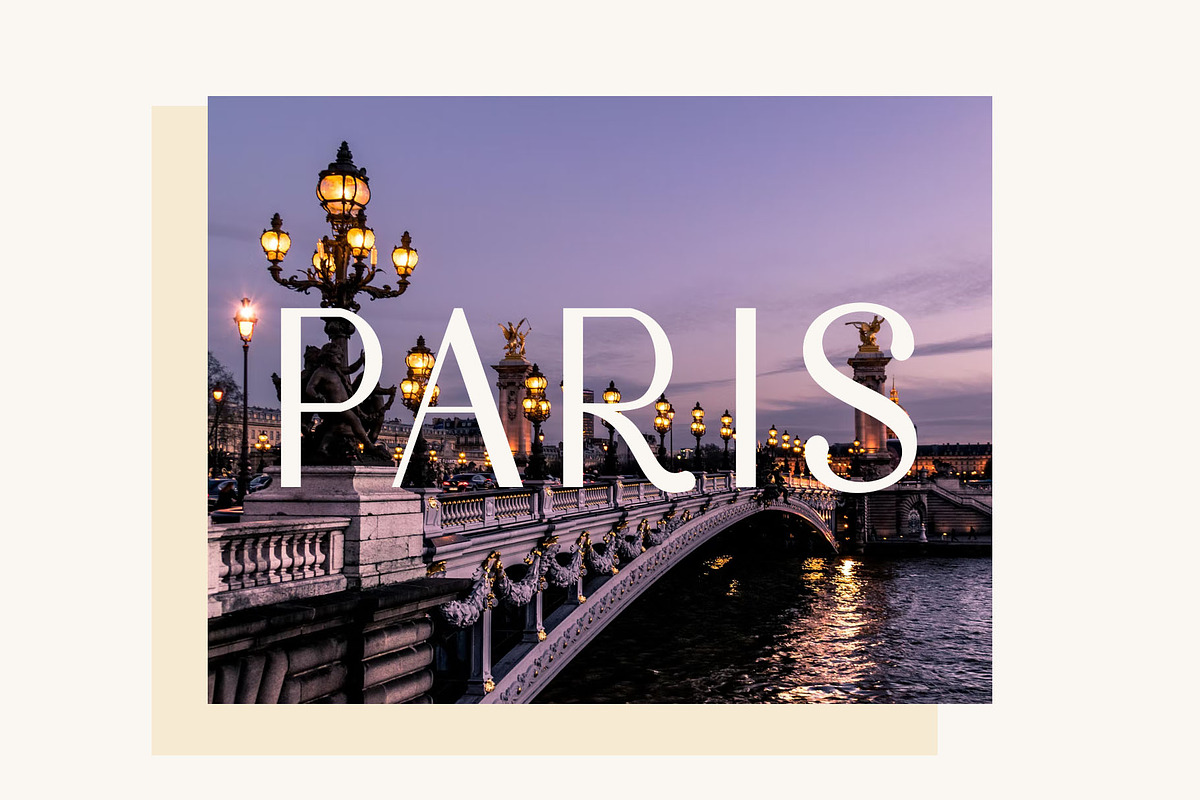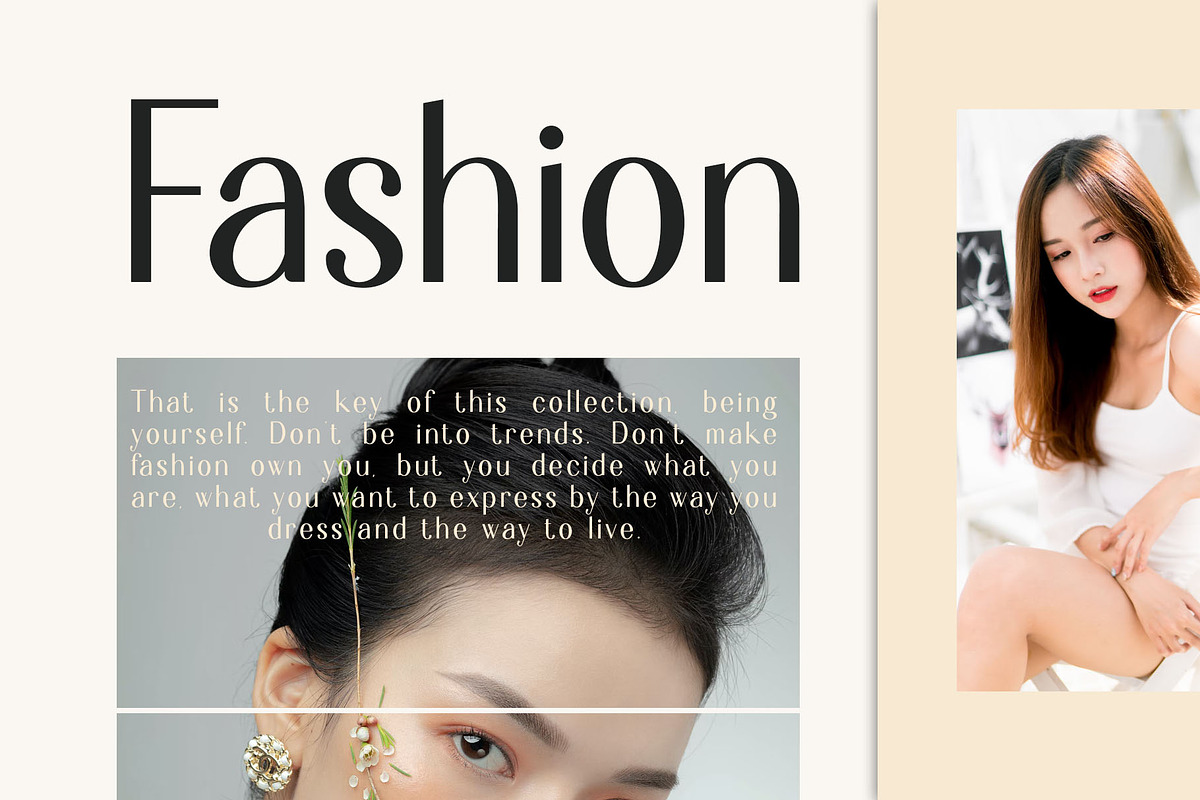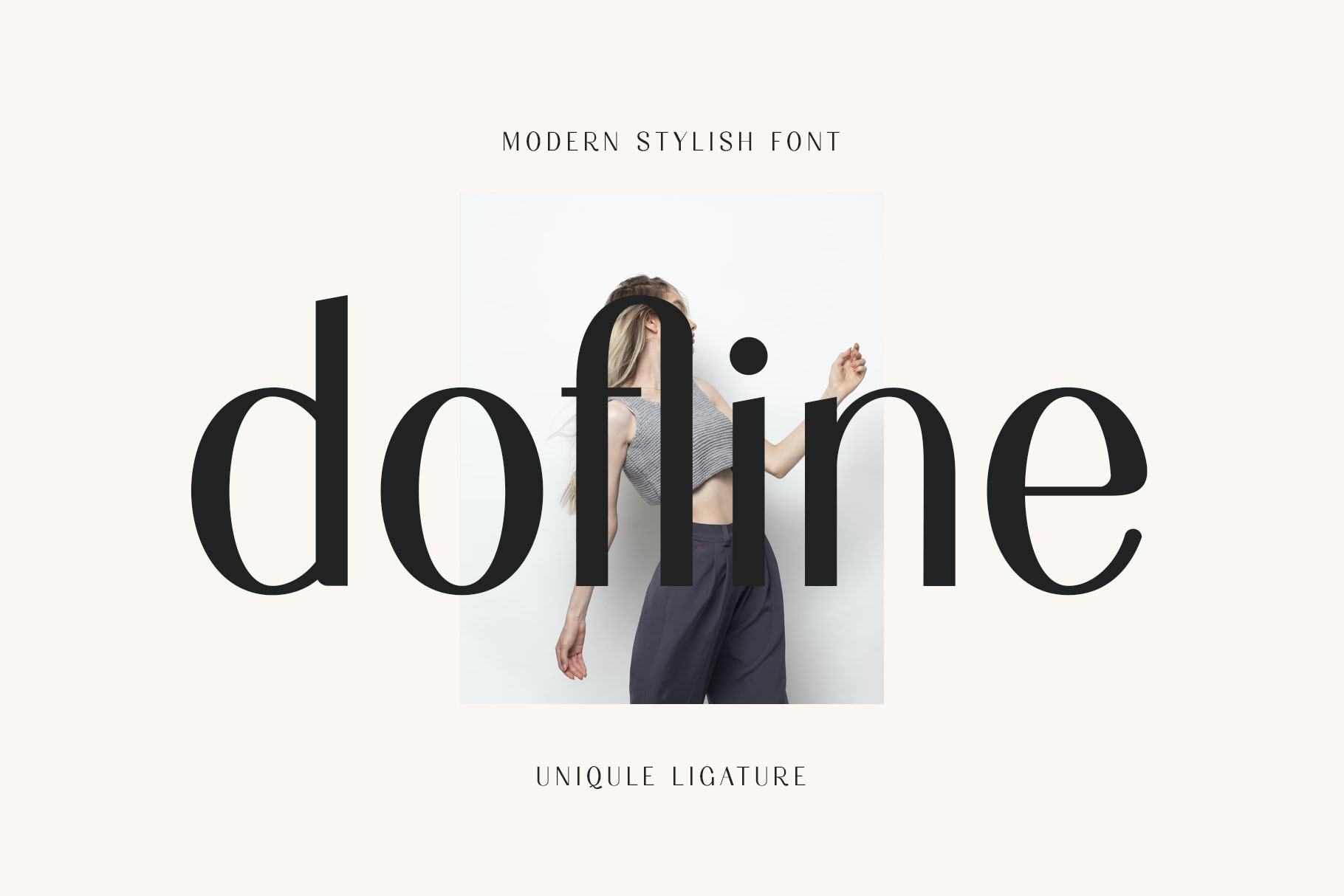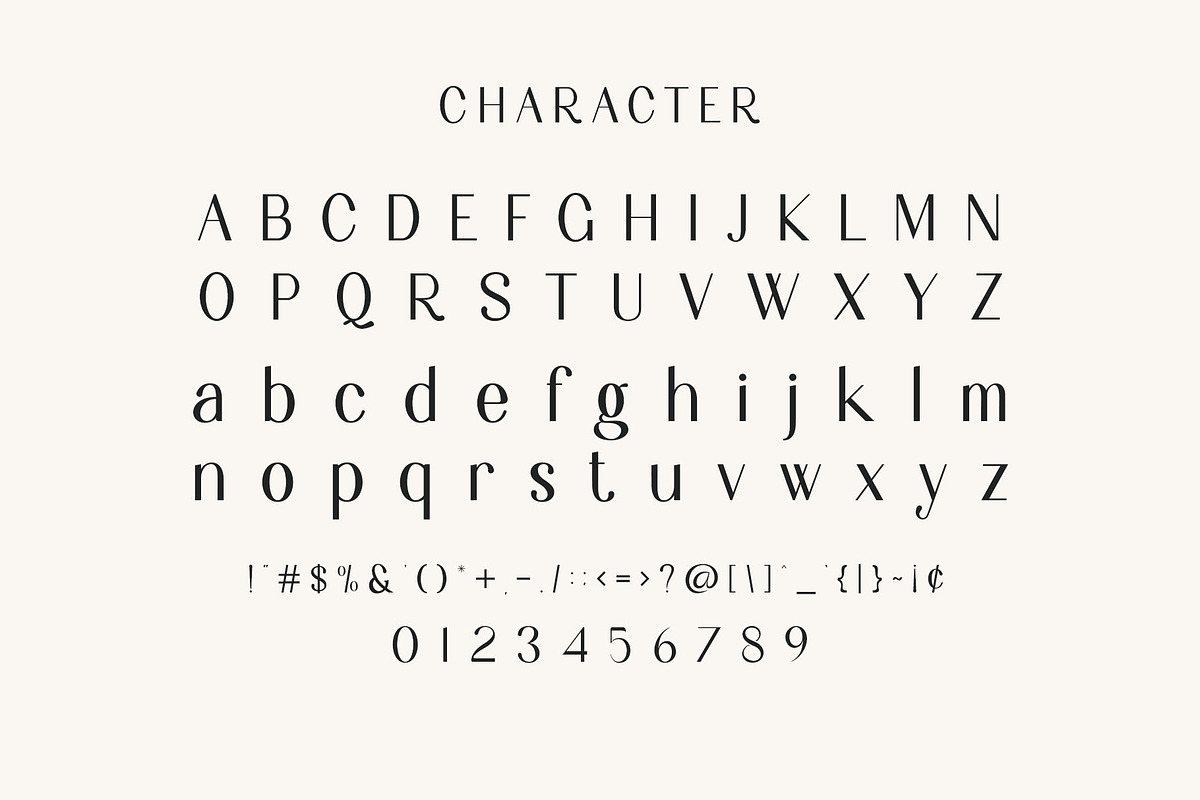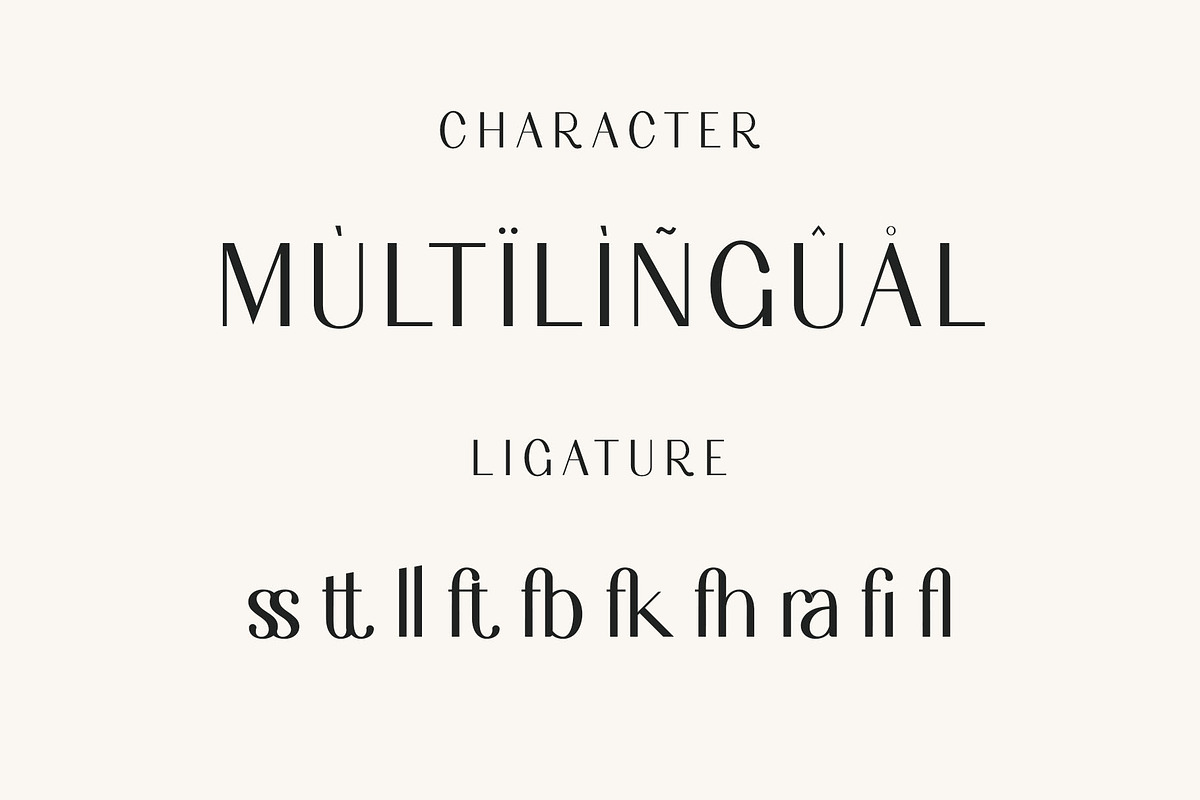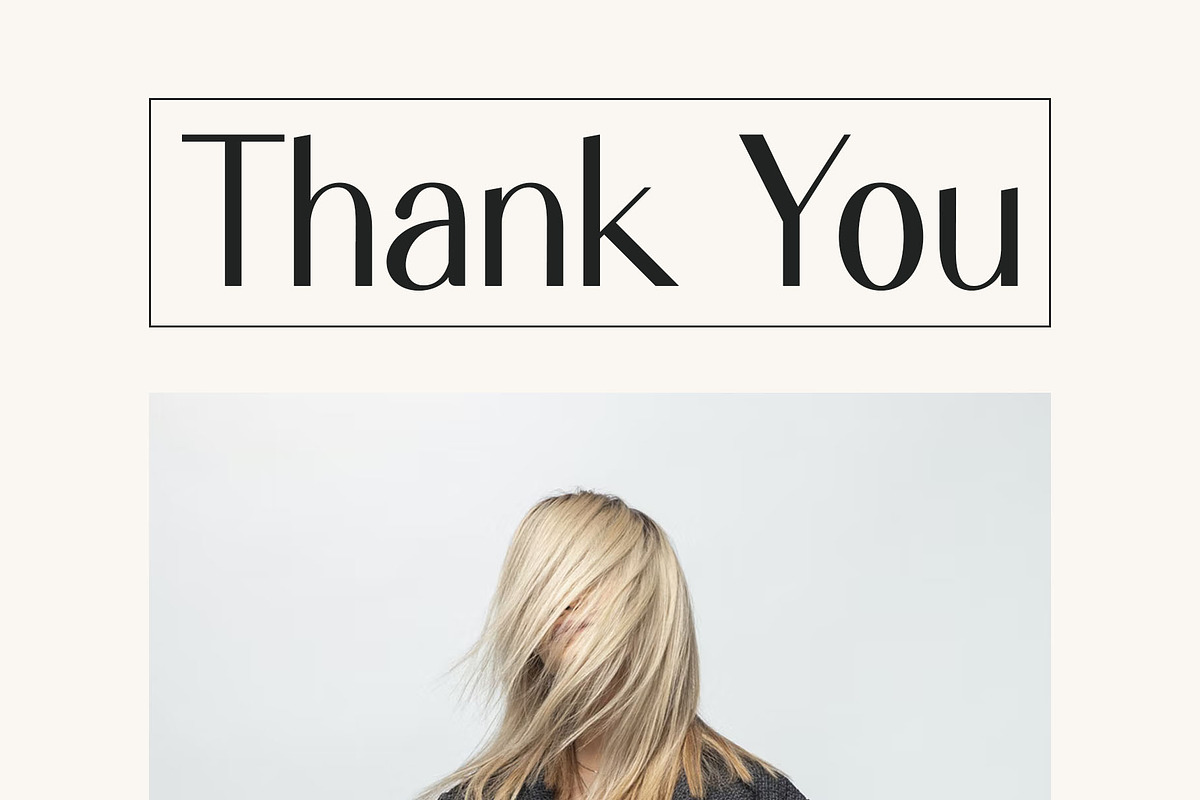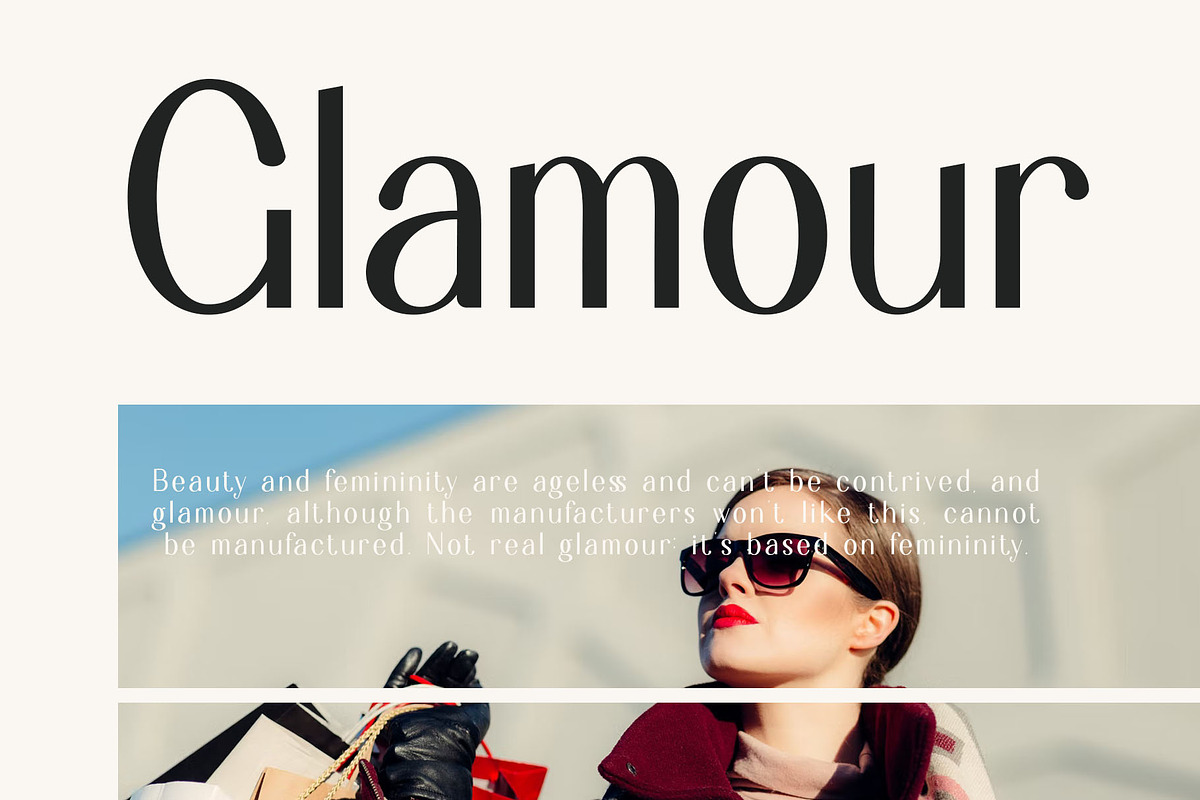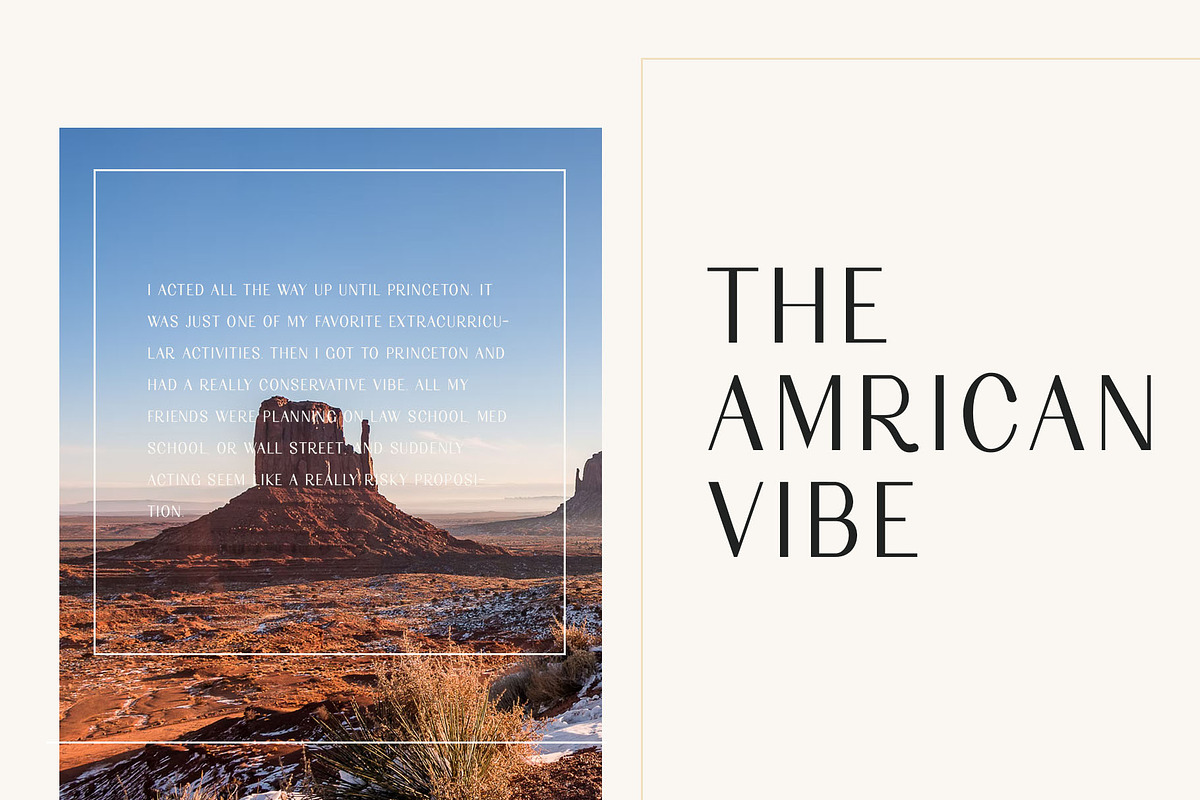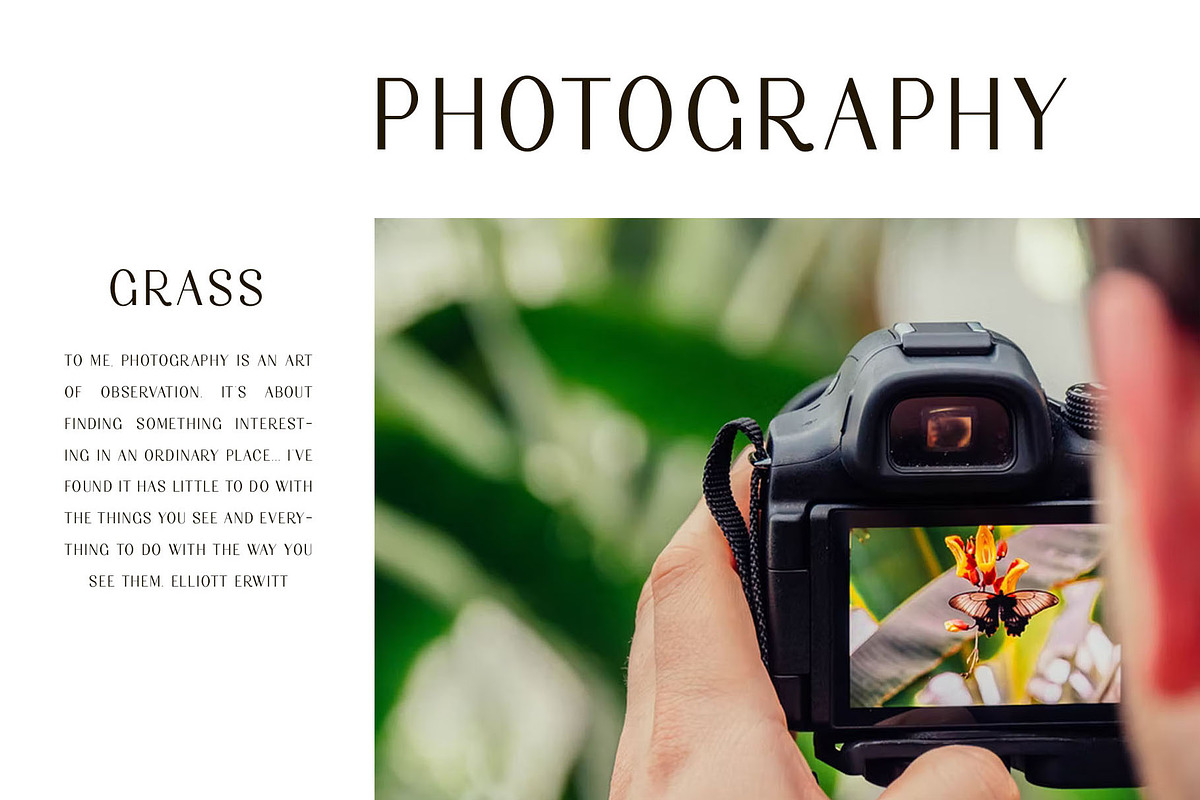
dofline Sans Serif Font
dofline sans serif with simple, clean, and visual elegance. Specially designed for elegant-themed projects, perfectly suitable for creating simple, clean, lifestyle design such as logos, title, and magazine and more.